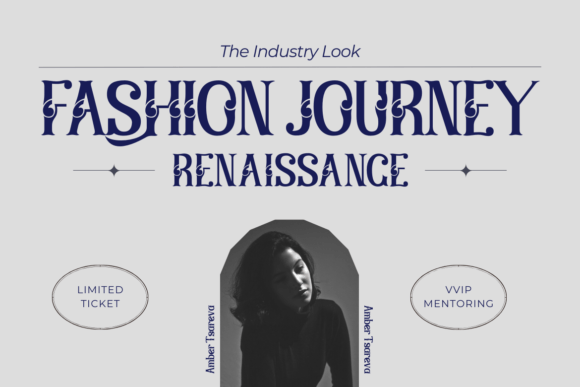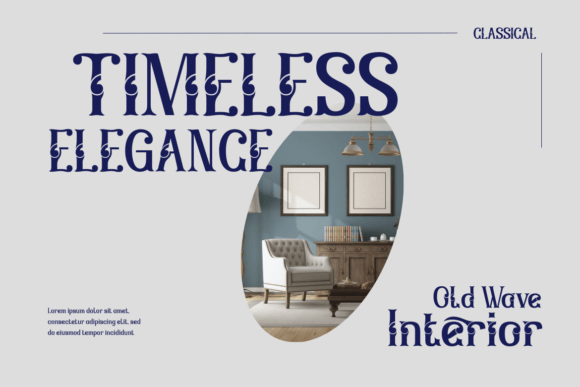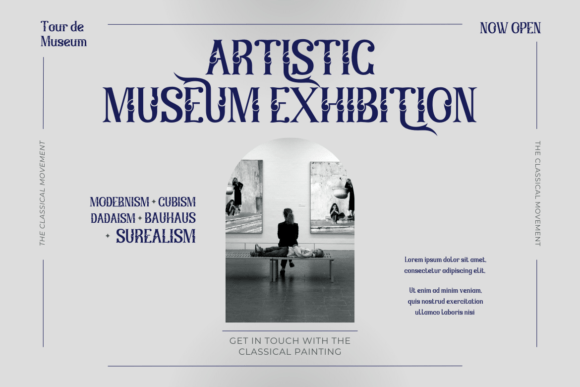
Introduction to Menier Font
Introducing Menier, the perfect retro condensed font for any project.
Its classic style and sleek design make it a versatile choice for both print and digital designs Menier’s retro condensed style adds a touch of nostalgia to any project, making it ideal for vintage and retro-themed designs.
Menier Font offers exceptional quality and versatility, making it a valuable addition to your design toolkit. Whether you’re creating for personal projects or commercial use, Menier Font delivers professional results.